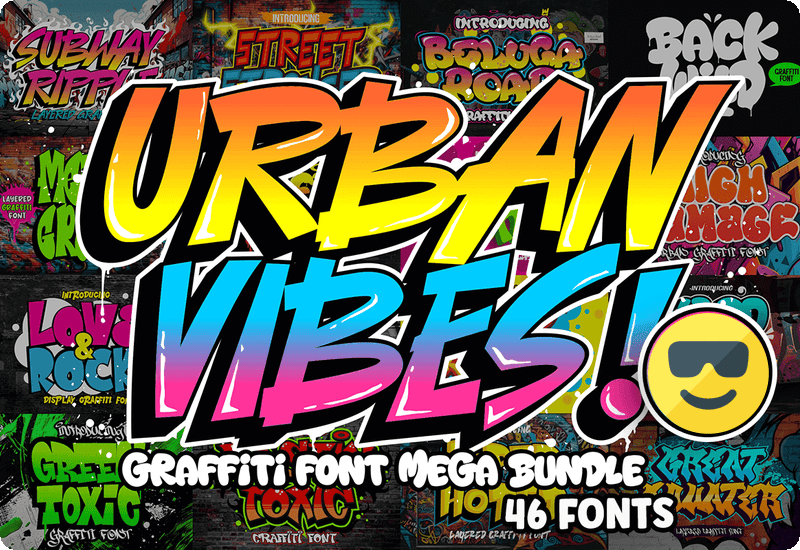
Bring Bold Street Art Aesthetics to Your Designs
The Urban Vibes – Graffiti Font Bundle delivers a collection of 46 high-quality graffiti-style fonts, perfect for capturing the raw energy and creativity of street culture. Whether you’re working on urban posters, branding projects, custom merchandise, or digital artwork, this font bundle gives you the freedom to experiment with bold and expressive typography.
Perfect for a Wide Range of Creative Projects
Designed with professional designers, artists, and hobbyists in mind, this graffiti font bundle is ideal for:
- Street art-inspired branding – Create unique logos and promotional materials.
- Posters and flyers – Give your artwork a dynamic, urban edge.
- Apparel and merchandise – Apply standout typography to clothing, stickers, and accessories.
- Social media and digital content – Make headlines and graphics more engaging.
- Tattoo designs and calligraphy – Experiment with street-style lettering.
46 Unique Graffiti Fonts Included
This premium font collection features a diverse mix of graffiti styles, from bold block lettering to intricate script designs. Here’s a look at some of the standout fonts included:
- Thorm Block Display Font – A heavy block-style font for high-impact designs.
- Wild Hustle Graffiti Display Font – A hand-drawn street-style font with attitude.
- Metro Graffi Display Font – Inspired by subway graffiti and underground culture.
- Bubble Horns Graffiti Display Font – A playful, bubbly font with an urban twist.
- Vandal Lineros Display Font – Classic graffiti tag-style lettering for a raw, edgy feel.
46 bold graffiti-style Premium Fonts included in the Urban Vibes – Graffiti Font Bundle:
- Thorm Block Display Font
- The Bolder Shadow Display Font
- King Jack Style Display Font
- Subawy Ripple Display Font
- Back Wild Display Font
- Fast Blaze Display Font
- Blue Monsta Font Display Font
- Hard Zone Display Font
- Dastin Toxic Display Font
- Wild Graf Display Font
- Urban Maxim Display Font
- Hiper Hoper Display Font
- Heart Bomber Display Font
- Big King Display Font
- Bubble Horns Graffiti Display Font
- Metro Graffi Display Font
- Morton Taggity Display Font
- Street Stronger Display Font
- Monosock Display Font
- Love and Rock Display Font
- Block Busta Display Font
- Vandal Lineros Display Font
- High Damage Fuentes Display Fuente
- Rhinos Pero Display Font
- Green Toxic Display Font
- Wrong Boys Display Font
- Road Monsta Display Font
- Bade Hoper Display Font
- Hightgraff Script Fonts Font
- Lord Jamet Display Font
- Roket Monster Display Font
- Wild Hustle Graffiti Display Font
- Griffin Rase Display Font
- Beluga Road Font Display Font
- Succer Head Display Font
- Wolf Fangs Display Font
- The Droga Display Font
- Back Jones 3d Layered Display Font
- Street Wolfker Display Fonts Font
- Jago Rawi Display Font
- Great Squater Script & Handwritten Font
- Derans Vandals Display-Schriftarten Schriftart
- Crazy Rooster Display Font
- Under Boom Display Font
- Dragon Scribble Blackletter Font
- Gear Four Display Font
Each font is crafted to bring a distinct urban vibe to your creative projects, making this bundle an essential addition to any designer’s toolkit.
Why Choose Urban Vibes – Graffiti Font Bundle?